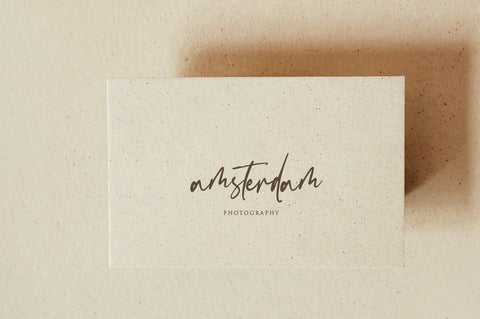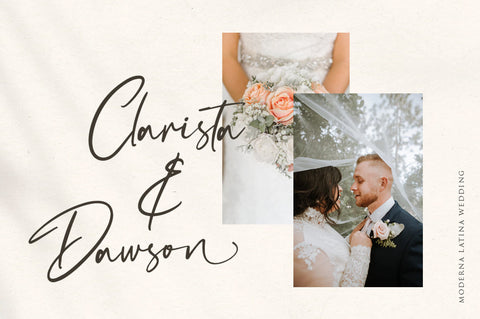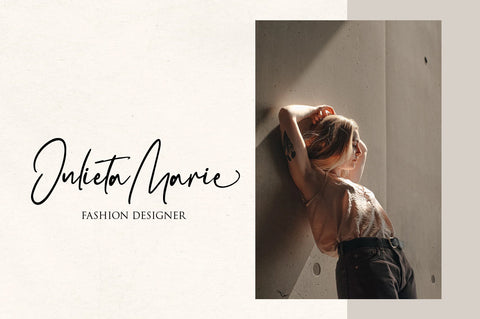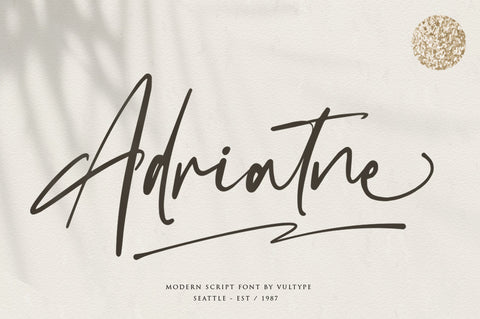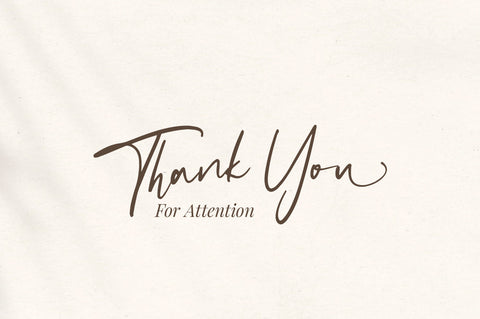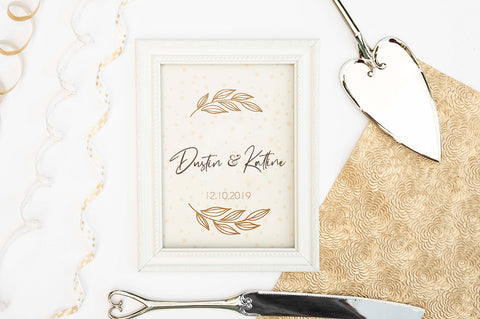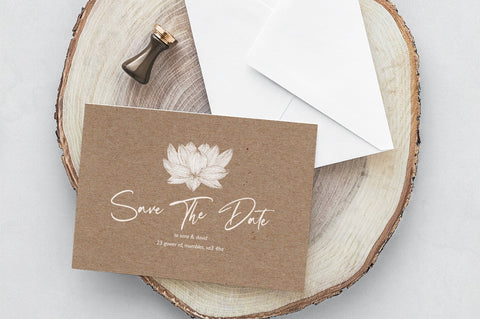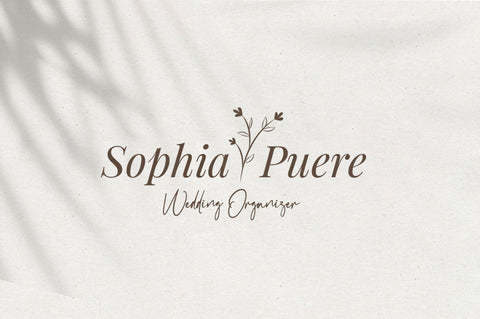
Adriatne Brush Font
Adriatne Brush Font feels equally charming and elegant. It looks stunning on wedding invitations, thank you cards, quotes, greeting cards, logos, business cards and every other design which needs a handwritten touch.
This font is PUA encoded which means you can access all of the glyphs and swashes with ease! It features a varying baseline, smooth lines, gorgeous glyphs and stunning alternates.